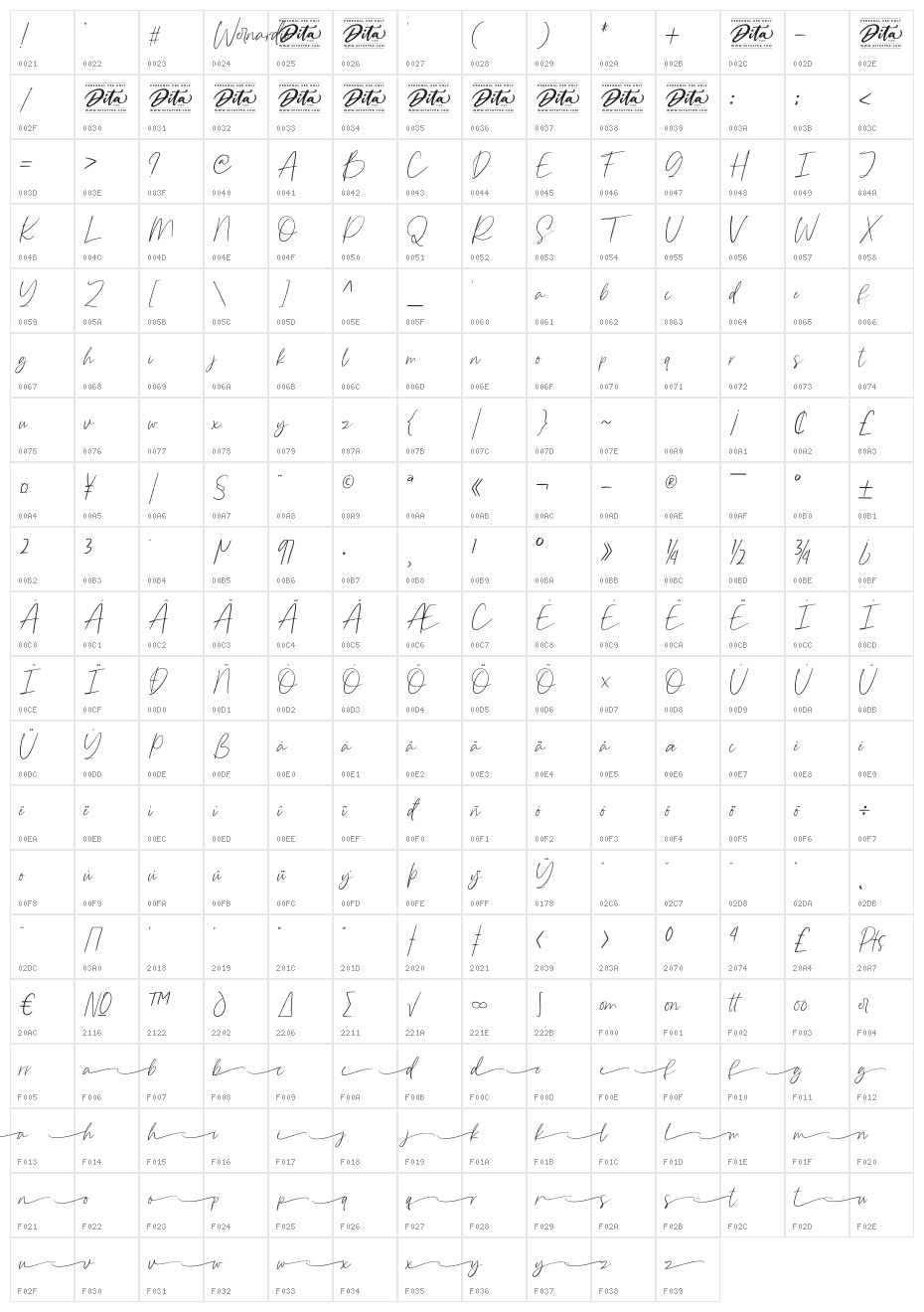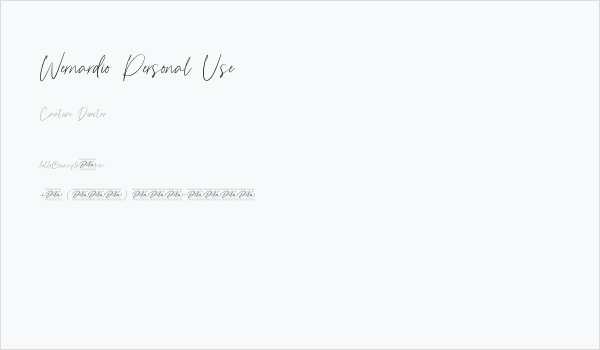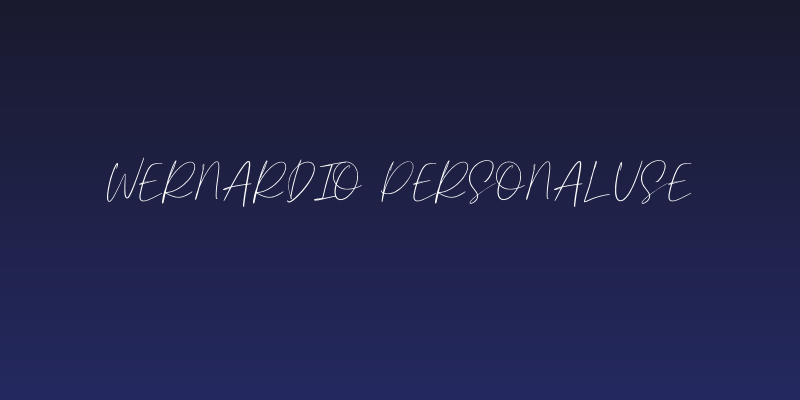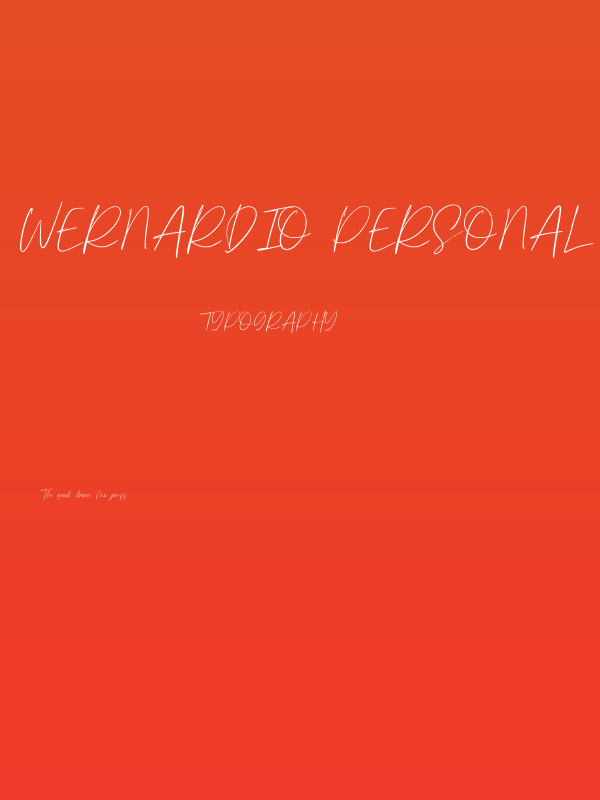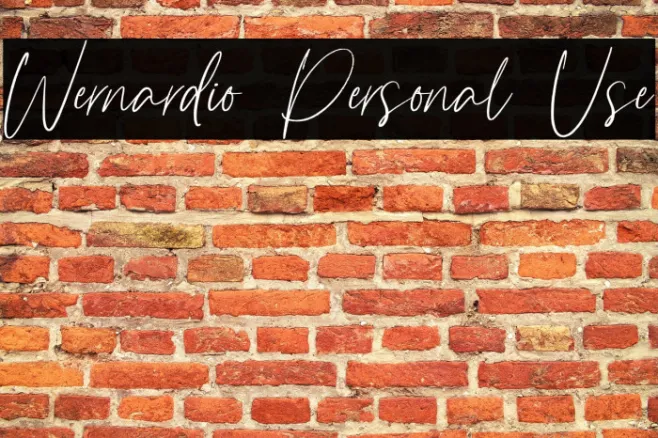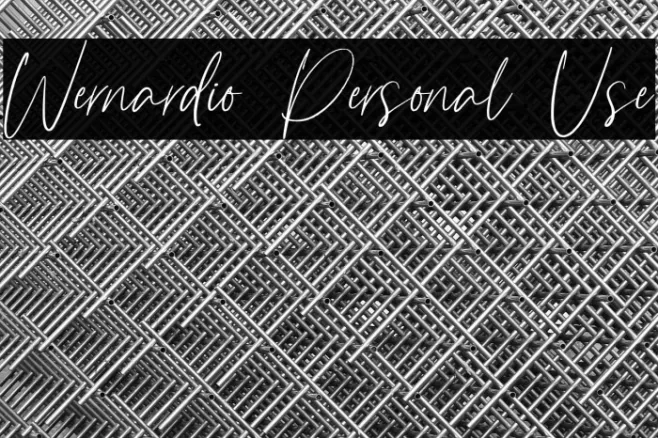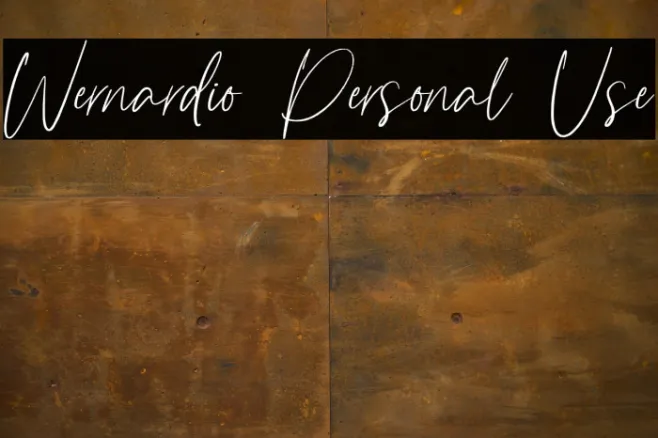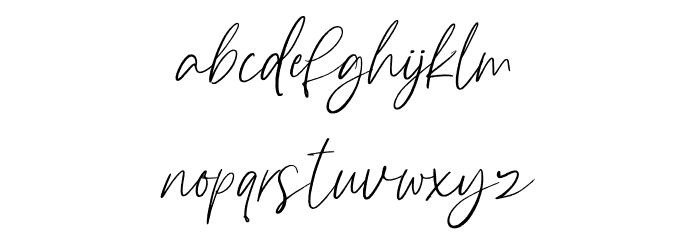
Wernardio Personal Use Font
Wernardio Personal Use Description
This font features a handwritten style with a fluid and elegant appearance. The letters are characterized by their smooth, flowing lines and slight slant, giving them a dynamic and personal touch. The uppercase letters are tall and slender, while the lowercase letters maintain a consistent style with a slightly more compact form. The font includes a full set of uppercase and lowercase letters, numbers, and a selection of special characters. The strokes vary in thickness, adding a natural and organic feel to the text. This font is ideal for projects that require a personal, artistic, or informal touch.
| Use Case | Logos, Headlines, Personal projects |
| Proposed Projects | Ideal for invitations, greeting cards, personal branding, and artistic projects. |